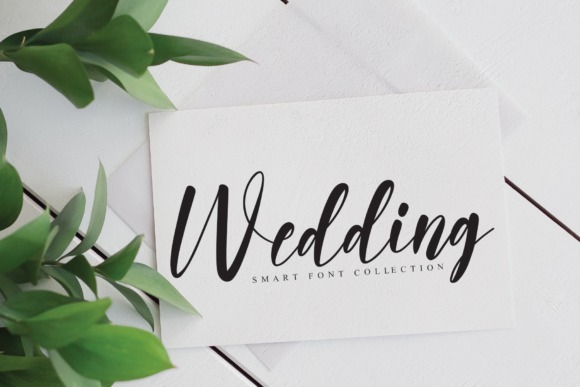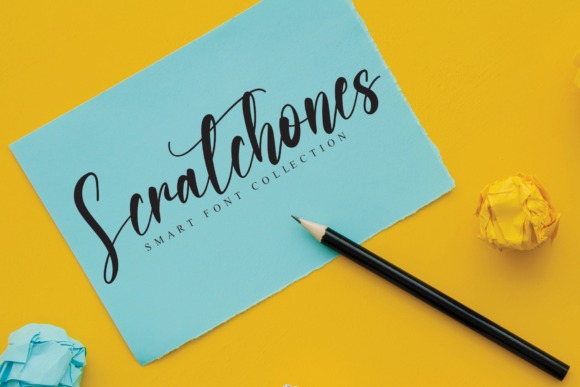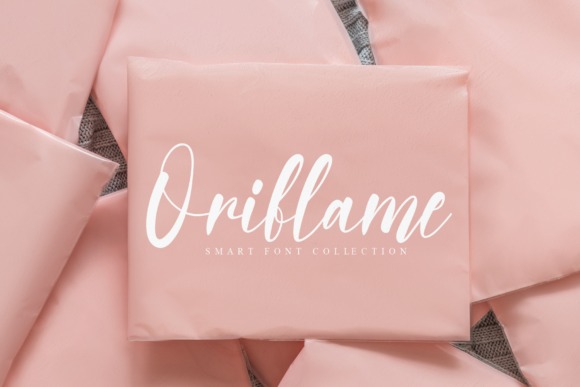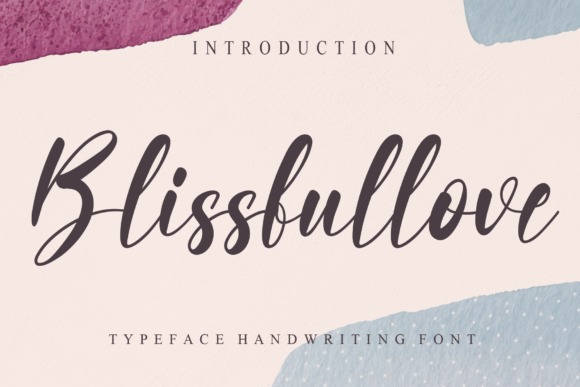
Blissfullove Font
Blissfullove Script Font
This is a friendly handwritten font. Its flexibility and neat style will brighten up each of your designs. Have fun with this cool font and explore its endless variations.
the latest style letters are perfect for wall displays, wedding invitations, social media post logos, advertisements, product packaging, product designs, labels, photography, watermarks, invitations, stationery, and any project that requires taste handwriting.